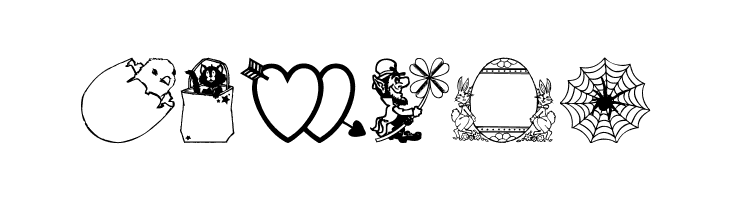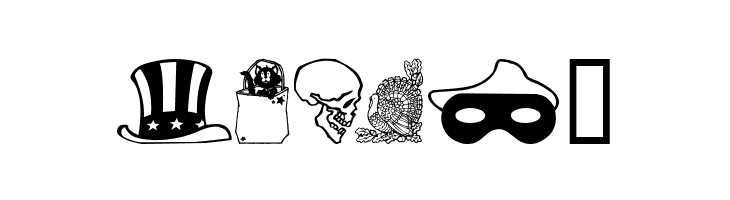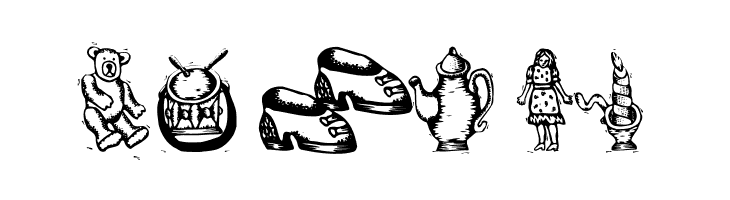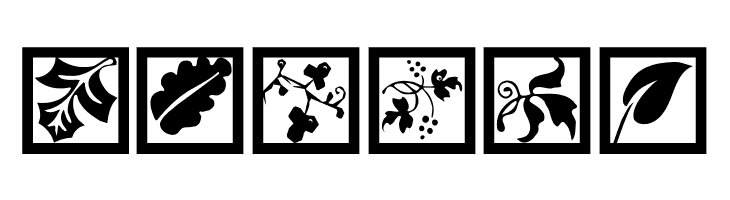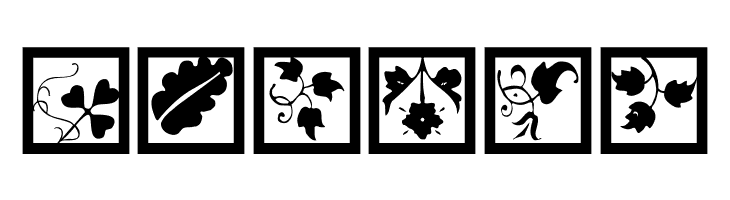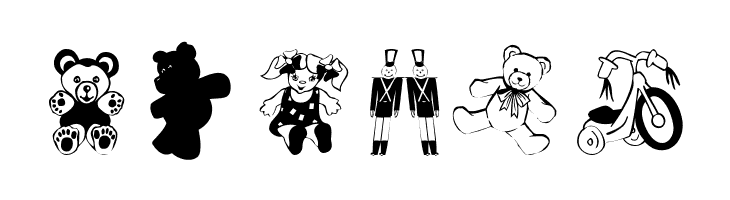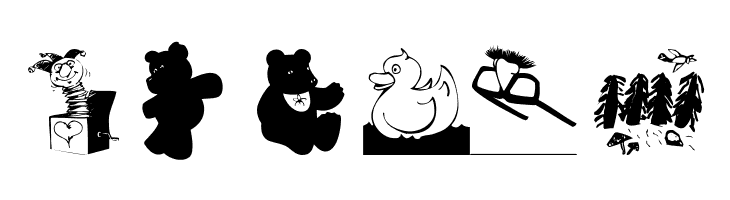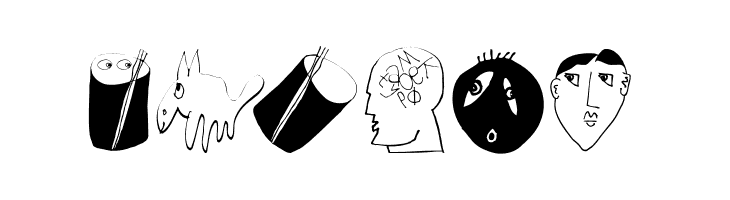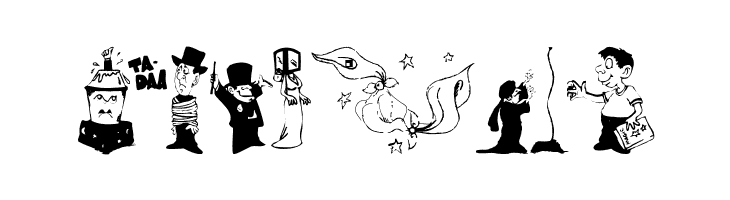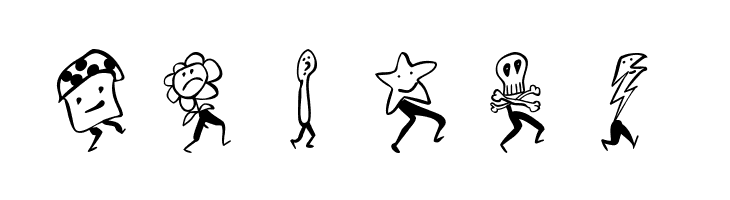
Ornate woodcut-style dingbat illustrations for each character.
Decorative floral dingbats in bold square frames.
Whimsical dingbat font with playful children's illustrations.
A playful dingbat font with quirky, hand-drawn illustrations.
Cartoon magician-themed dingbat font with playful illustrations.
Playful dingbat font with object-headed stick figures.
A woodcut-style dingbat font with playful, vintage illustrations.
A diverse dingbat font with assorted graphic icons and illustrations.
Decorative maritime-themed dingbat set with bold, vintage illustrations.
Cartoonish dingbat font featuring humorous bad luck scenarios.
Illustrative dingbat font with sleep-themed drawings.
Bold pictogram dingbats depicting military and war-related imagery.
A decorative dingbat font with assorted drink and beverage illustrations.
Ornate pictorial dingbat set with diverse, detailed illustrations.
Whimsical pictorial dingbats with storybook and fantasy themes.
Pixel-art dingbat font with playful, retro icons.
Illustrative dingbat font with art and artist-themed icons.
Ancient-themed dingbat font with detailed line art illustrations.
Cartoonish space-themed dingbat illustrations.
A playful decorative font featuring unique bird illustrations for each character.
A dingbat font with office and business-themed pictograms.
A symbol and dingbat font with scientific, geometric, and illustrative motifs.
Playful dingbat font with running cartoon characters and objects.
A decorative dingbat collection with abstract, geometric, and illustrative icons.
Ornamental dingbat font with floral and botanical motifs.
Illustrative dingbat font depicting outdoor sports.
Comic-inspired dingbat font with retro illustrations for each character.
A playful dingbat font with quirky, hand-drawn illustrations.
Cartoon animal dingbat font with humorous illustrations.
A cartoon dingbat font featuring detailed everyday life illustrations.
Decorative dingbat font with African art and cultural motifs.
A decorative font with dinosaur and prehistoric scene silhouettes.
A decorative dingbat font of human silhouettes and cartoon figures.